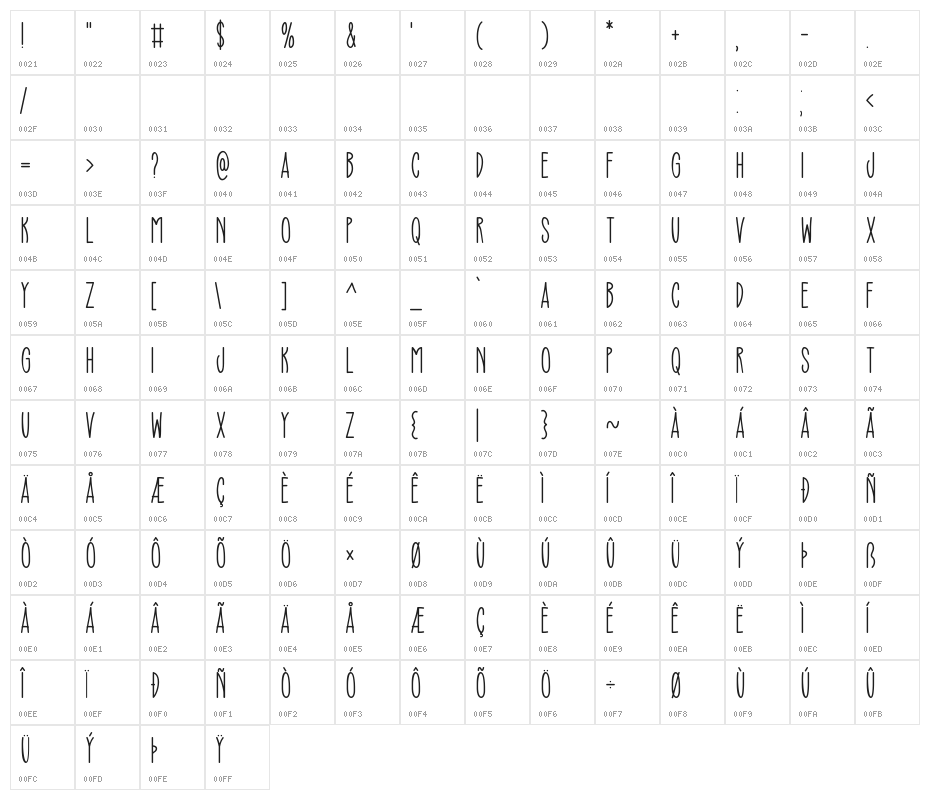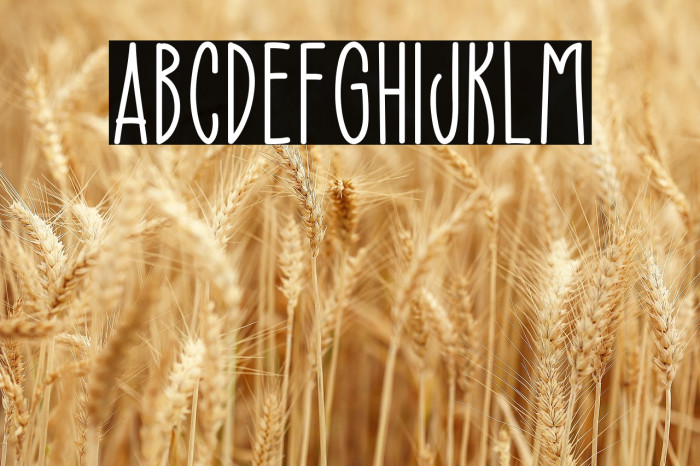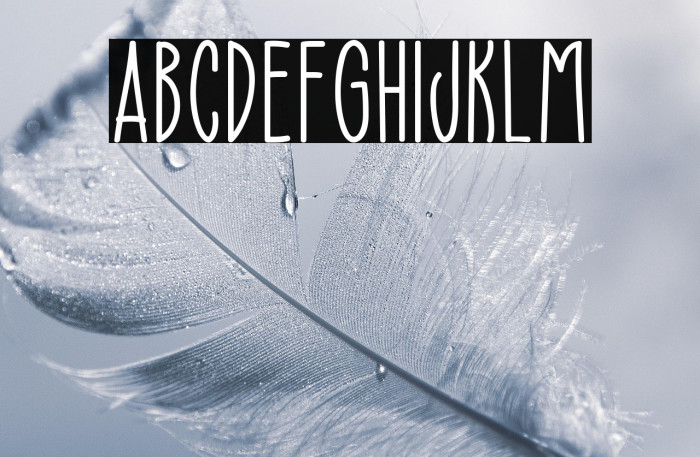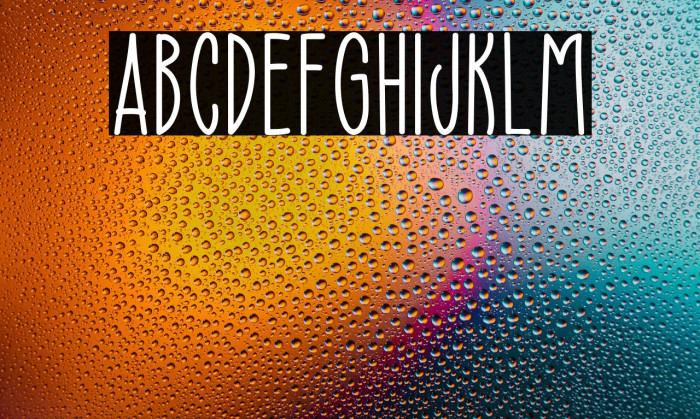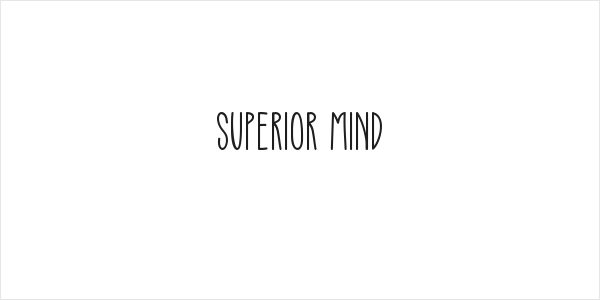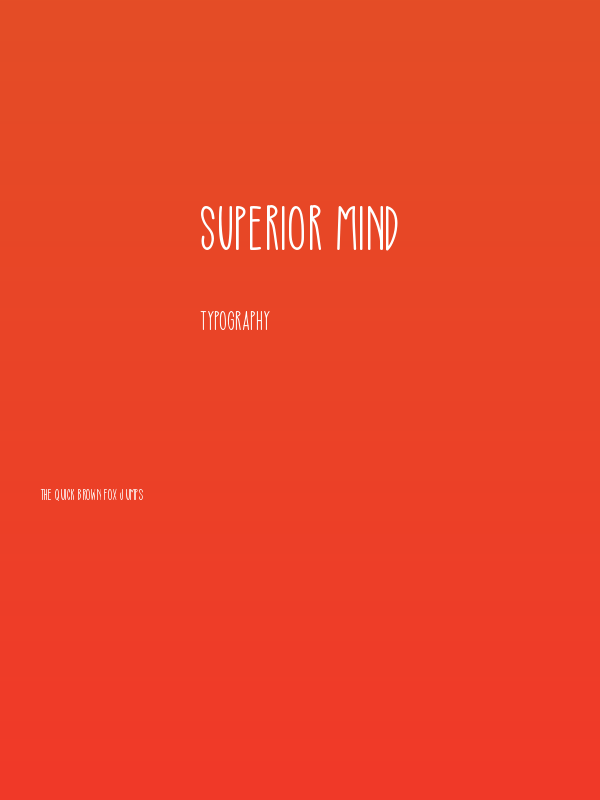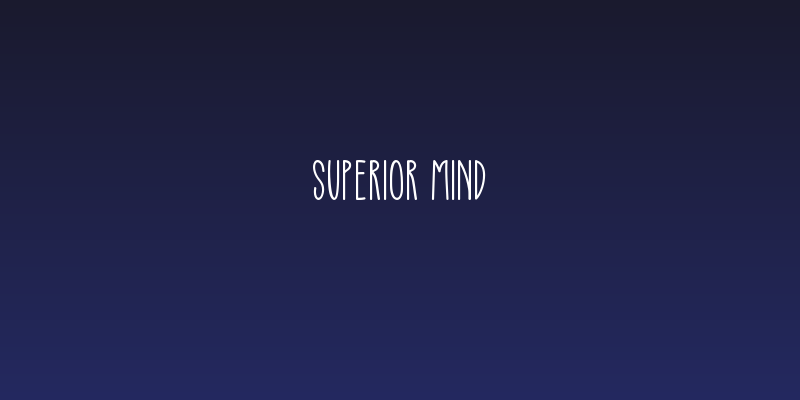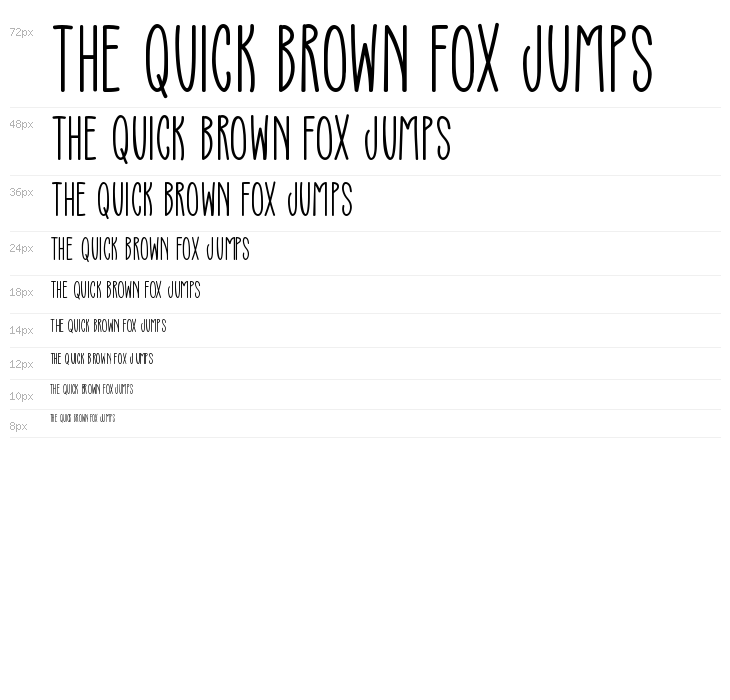
Superior Mind Font
Superior Mind Description
A tall, narrow, handwritten-style font with a playful and informal appearance.
| Use Case | Headlines, Informal text |
| Proposed Projects | Greeting cards, children's books, casual branding. |